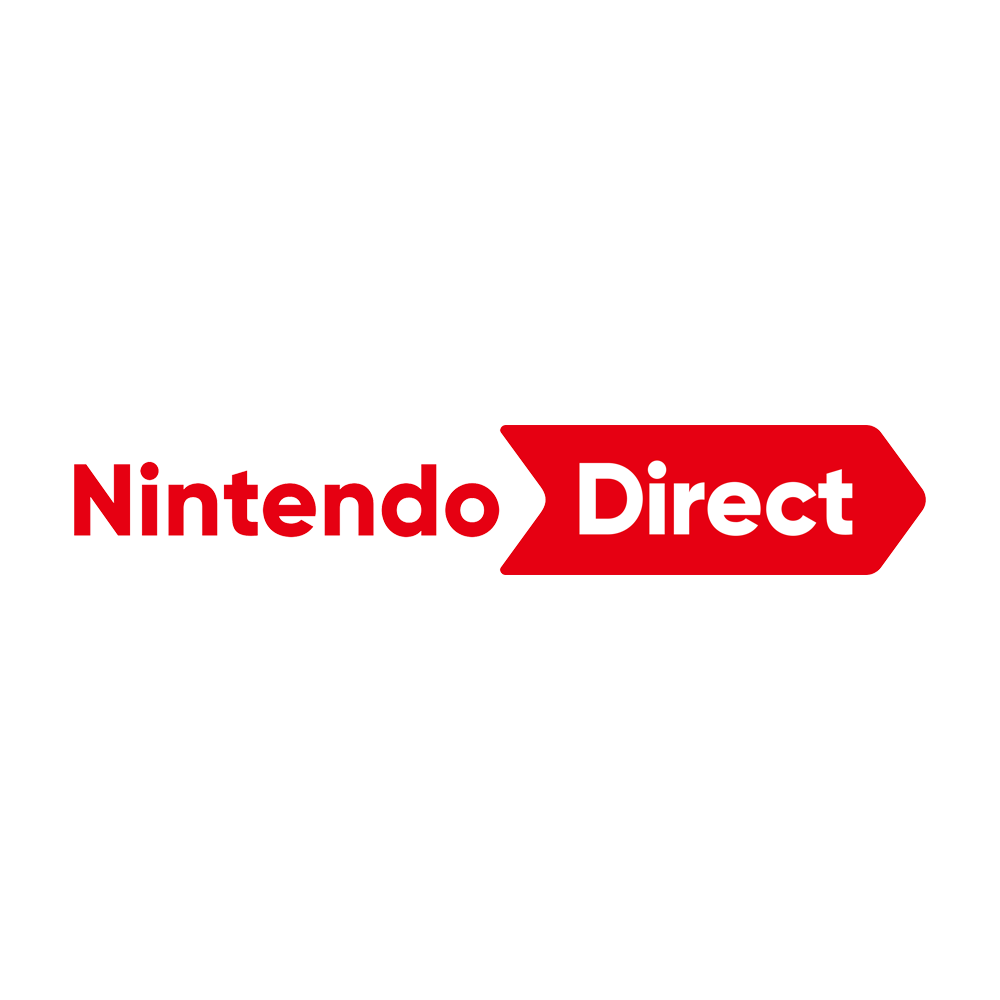
Nintendo Direct Font
Fonts in UseNintendo Direct is a series of online video presentations by Nintendo, showcasing upcoming video games and products. These presentations often include announcements, trailers, and gameplay footage, and are highly anticipated by Nintendo fans.
The Gilroy ExtraBold font was utilized in the Nintendo Direct logo, which is a part of the sans serif font family designed by Radomir Tinkov, available in ten different weights with corresponding italics. The Light and ExtraBold versions of Gilroy are currently accessible for free, and you can download them from the Fonts Used Section.